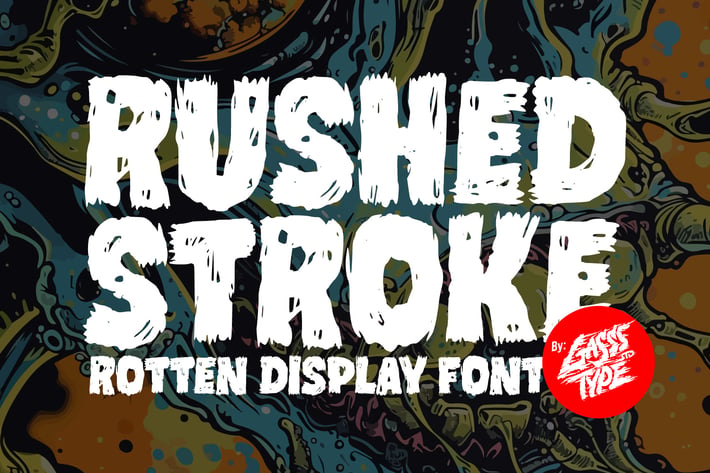
Rushed Stroke - Horror Rough Display Font
Rushed Stroke – Horror Rough Display Font for Distressed Designs
Perfect for crafting spine-chilling posters, gritty horror movie titles, and intense graphic designs, Rushed Stroke brings a raw, unsettling edge to your creative projects. This horror rough display font features a rugged texture with uneven strokes and jagged edges, capturing the essence of chaos and fear. Its distressed look adds a layer of authenticity and intensity, making it ideal for designs that aim to evoke a sense of dread and unease.
Whether you’re designing for a horror film, a haunted house event, or a vintage horror-themed publication, Rushed Stroke makes your content stand out with its bold, unrefined aesthetic. The font’s aggressive style and dramatic presence ensure that your message is delivered with maximum impact.